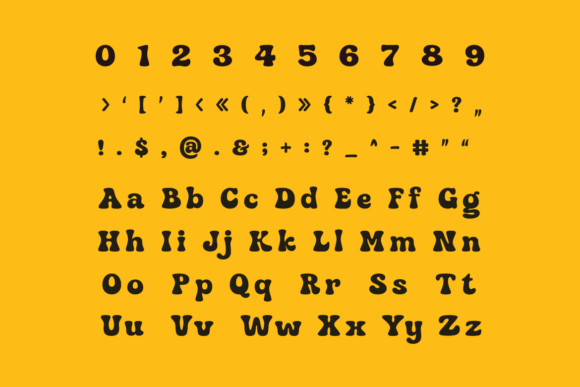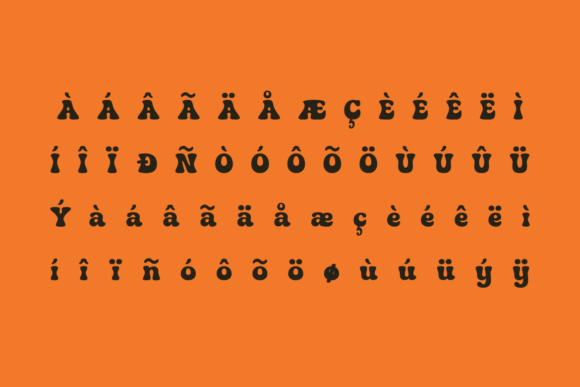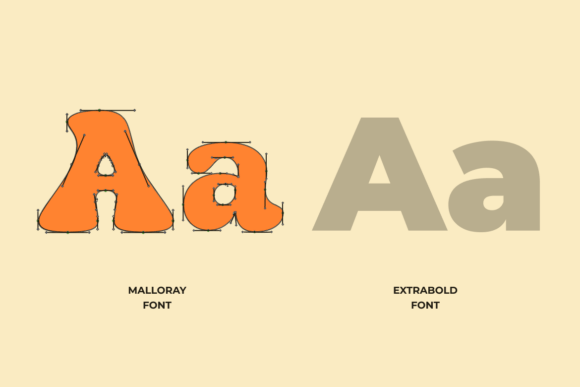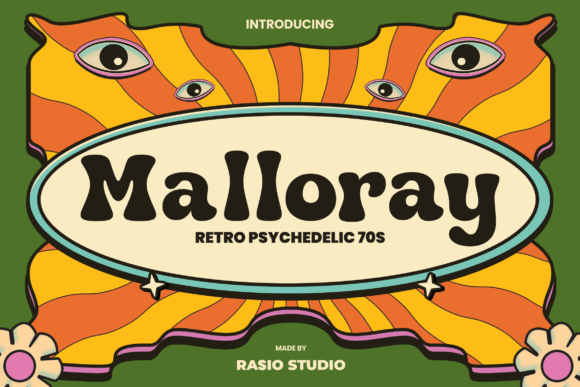
Introduction to Malloray Font
Malloray Retro Psychedelic Font captures the bold and groovy spirit of the 1970s with its wavy letterforms and playful rhythm.
Inspired by the vibrant aesthetics of vintage posters, disco culture, and psychedelic art, this display typeface delivers nostalgic charm with a modern twist Whether for music festival posters, vintage branding, or bold editorial titles, Malloray brings a unique and expressive personality to every project.
Key Features of Malloray Font
Why Choose Malloray Font?